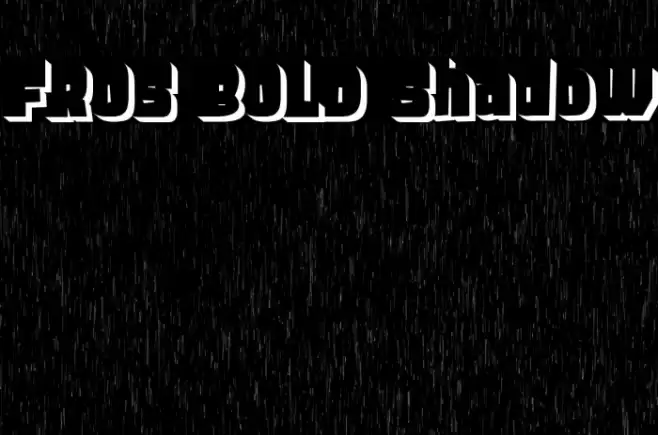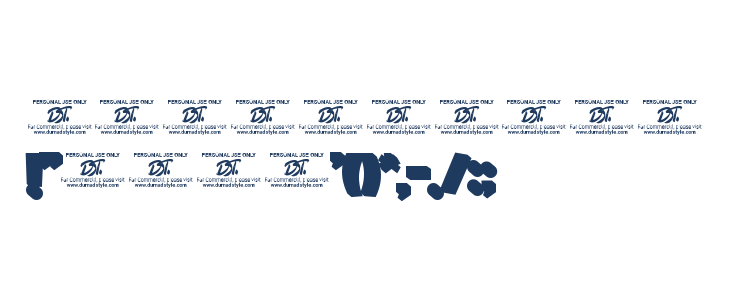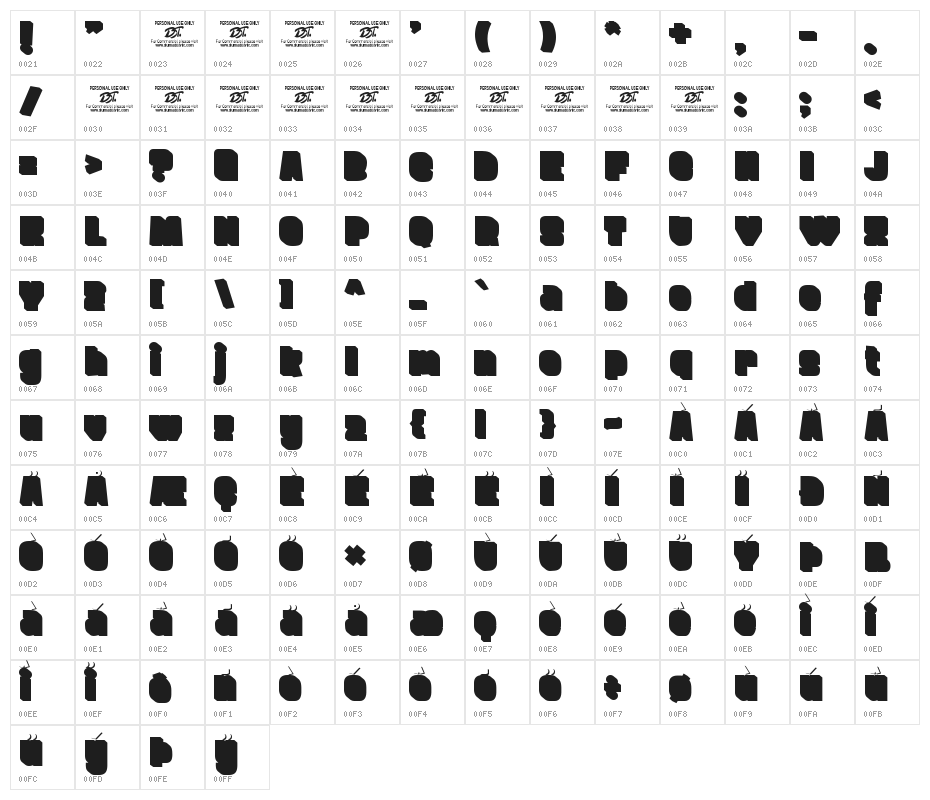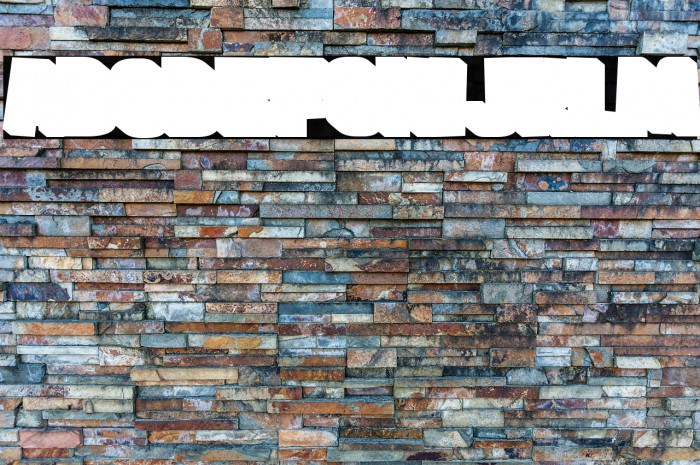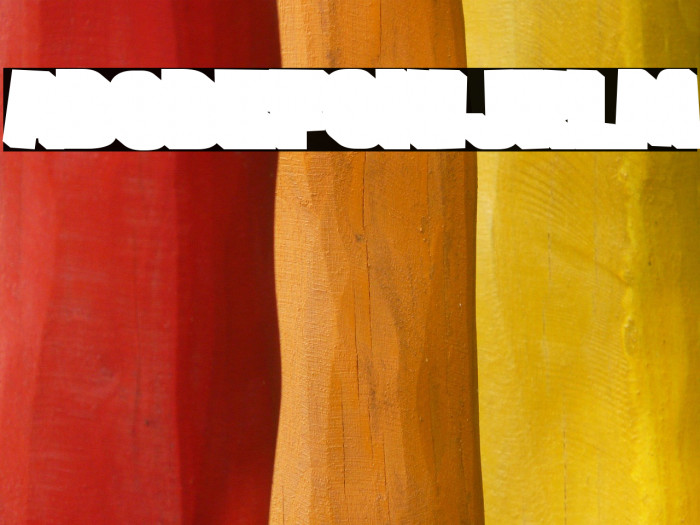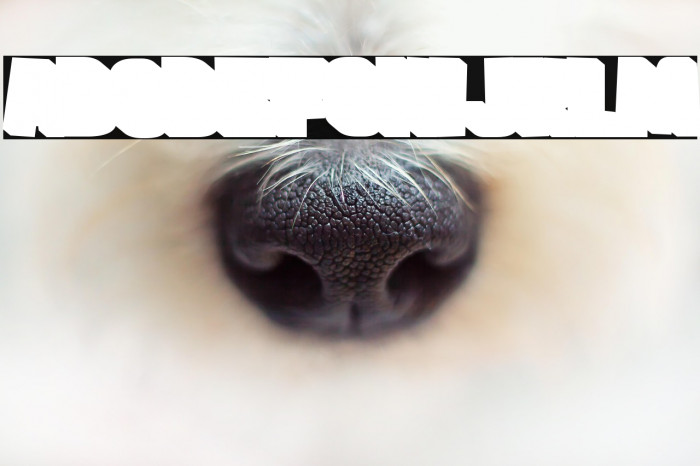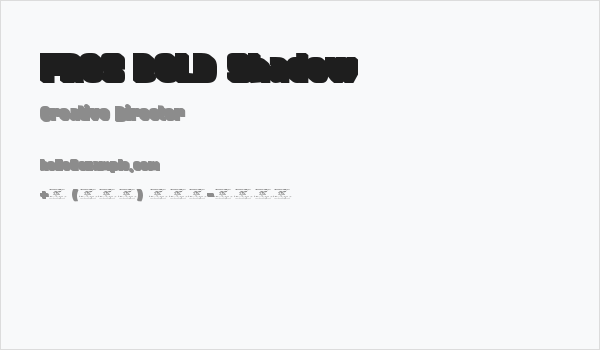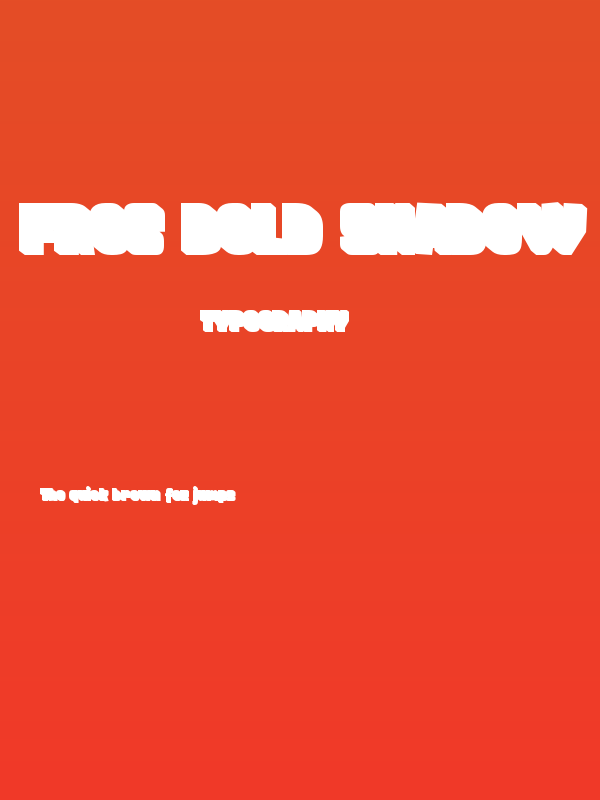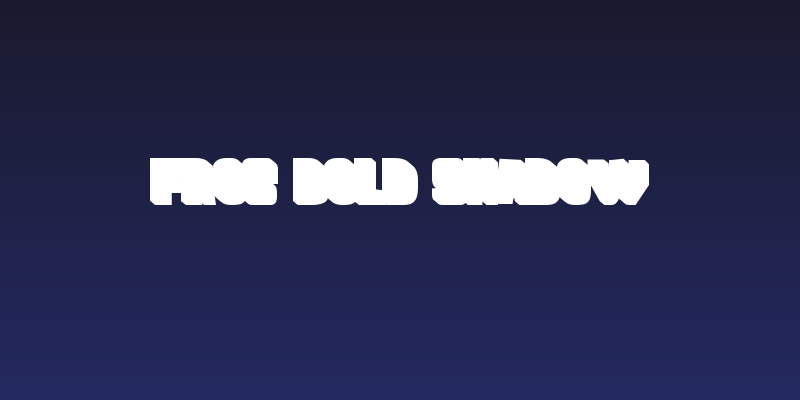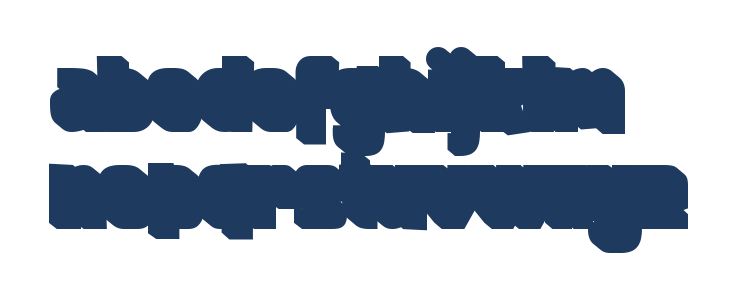
FROS BOLD Shadow Font
FROS BOLD Shadow Description
This font features a bold, shadowed style that gives it a strong, three-dimensional appearance. The characters are blocky and robust, with a distinct drop shadow effect that adds depth and visual interest. The uppercase and lowercase letters maintain a consistent weight, contributing to a cohesive look. The numerals and special characters follow the same design principles, ensuring uniformity across all glyphs. This font's boldness and shadow effect make it stand out, ideal for attention-grabbing designs.
A bold, shadowed font with a strong, three-dimensional look from Cartoon fonts.
- Proposed Projects: Ideal for posters, headlines, logos, and any design requiring a bold, impactful statement.